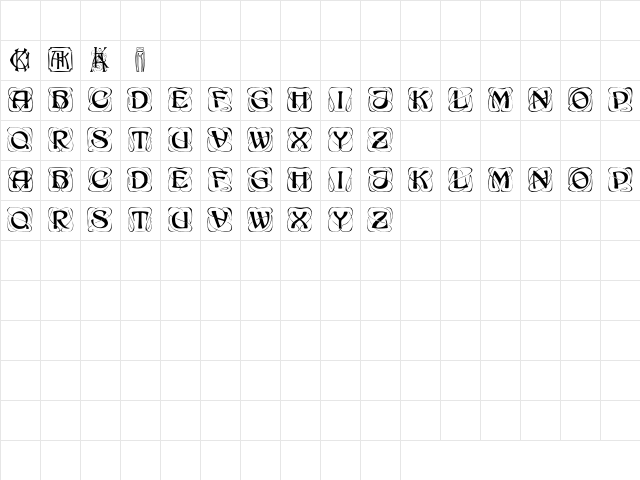
KonanKaps Regular Free Font
KonanKaps Regular
Design Context for KonanKaps
KonanKaps is a composed and adaptable typeface that performs quietly and consistently across a wide range of design contexts.